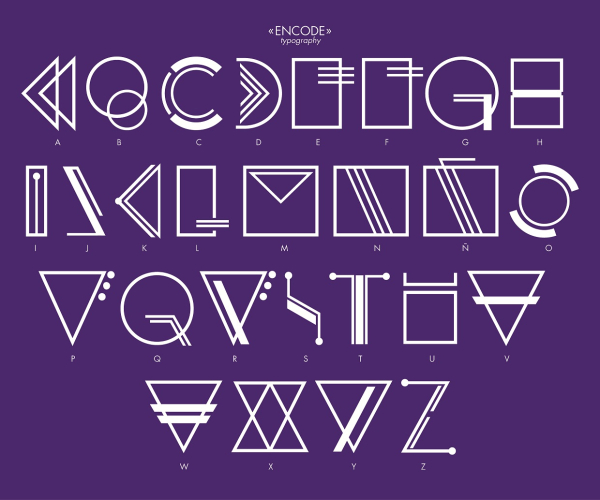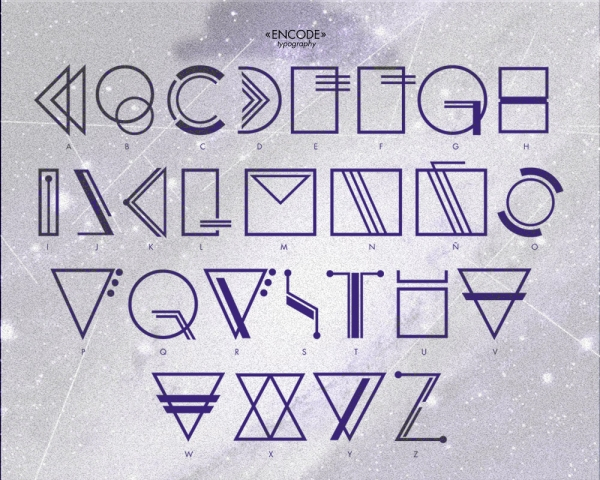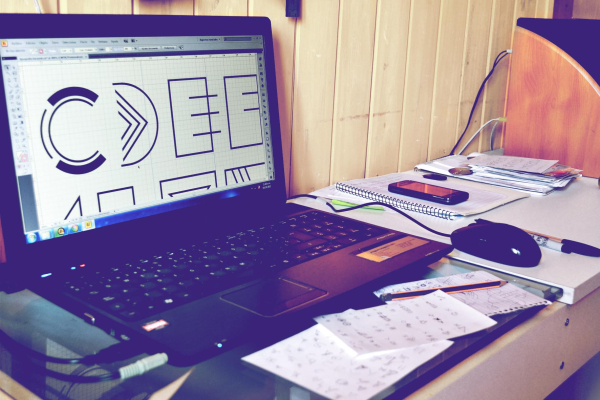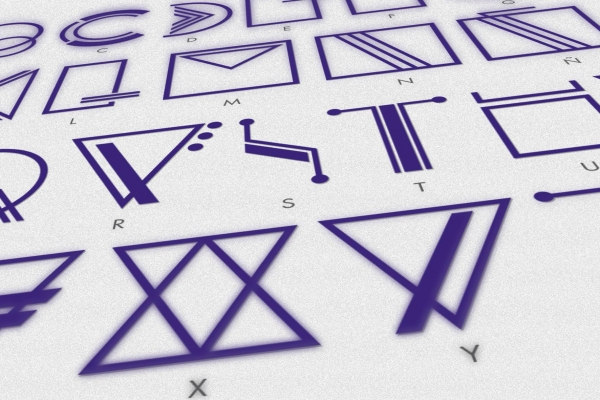
Encode font
The following typography was built following the most relevant characteristics of electronic circuits fused with more basic geometric shapes.